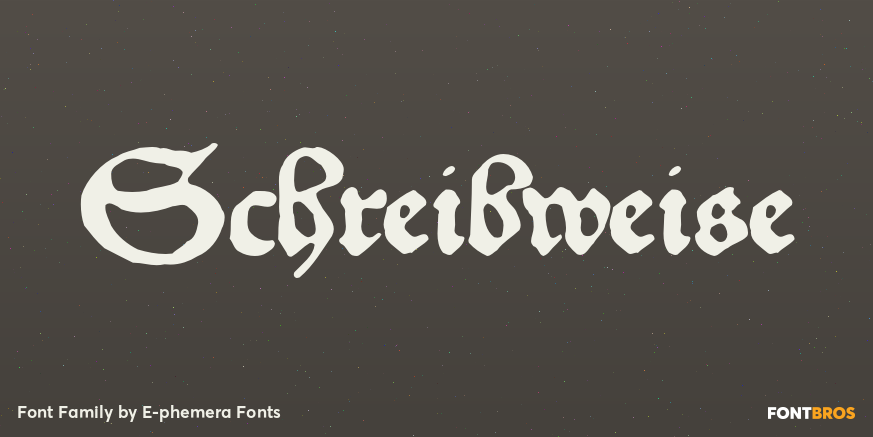
Schreibweise
About Schreibweise
Schreibweise is a pirate-flavored font inspired by a hand-lettered manuscript dating from 1492. The digital font features numerous traditional blackletter and discretionary ligatures and contextual alternates to help create the feel of genuine hand lettering,…